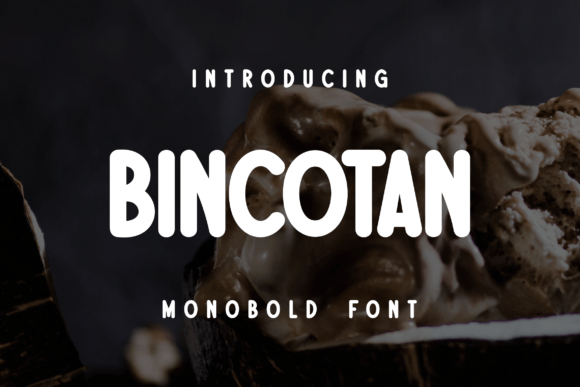
The Bincotan Font: A Designer’s Best Friend for Readable Product Descriptions
I still remember the time I was working on a project for a food and beverage client, struggling to find the perfect font for their product descriptions. The font had to be easy to read, visually appealing, and convey a sense of warmth and approachability. That’s when I stumbled upon the Bincotan font, and it was love at first sight! 💕
As I began to work with Bincotan, I realized that its slogan – “Easy to read and recognize” – was more than just a tagline. It was a promise that this font would deliver on its commitment to clarity and legibility, making it perfect for writing product descriptions that need to shine.
An Honest Review of Bincotan Font
What I Love About Bincotan ✨
- ✅ Easy to read: Bincotan’s thicker strokes make it perfect for body text, especially for product descriptions that need to be clear and concise.
- ✅ Recognizable: The font’s unique character set and distinctive style make it easy to recognize, even at small sizes.
- ✅ Versatile: Bincotan works well for a variety of design projects, from food and beverage labels to craft and hobby-related materials.
- ✅ Aesthetically pleasing: The font’s rounded edges and smooth curves give it a friendly, approachable feel that’s hard to resist.
While Bincotan is an excellent font, it’s not perfect. Here are a few quirks to keep in mind:
- ⚠️ Limited availability of stylistic alternates: Bincotan doesn’t offer a wide range of stylistic alternates, which may limit its use in certain design projects.
- ⚠️ Not ideal for body text in long documents: While Bincotan is great for short paragraphs, it may not be the best choice for long documents or articles.
The Backstory of Bincotan Font
Bincotan was designed with the goal of creating a font that’s easy to read and recognize. The font’s creator was inspired by the need for clear, legible typography in product descriptions, particularly in the food and beverage industry. The result is a font that’s both functional and aesthetically pleasing.
Q: What is Bincotan font best used for?
A: Bincotan font is best used for product descriptions, labels, and other design projects that require clear, legible typography.
Q: Is Bincotan font suitable for body text in long documents?
A: While Bincotan is a great font, it may not be the best choice for body text in long documents. It’s better suited for short paragraphs and headings.